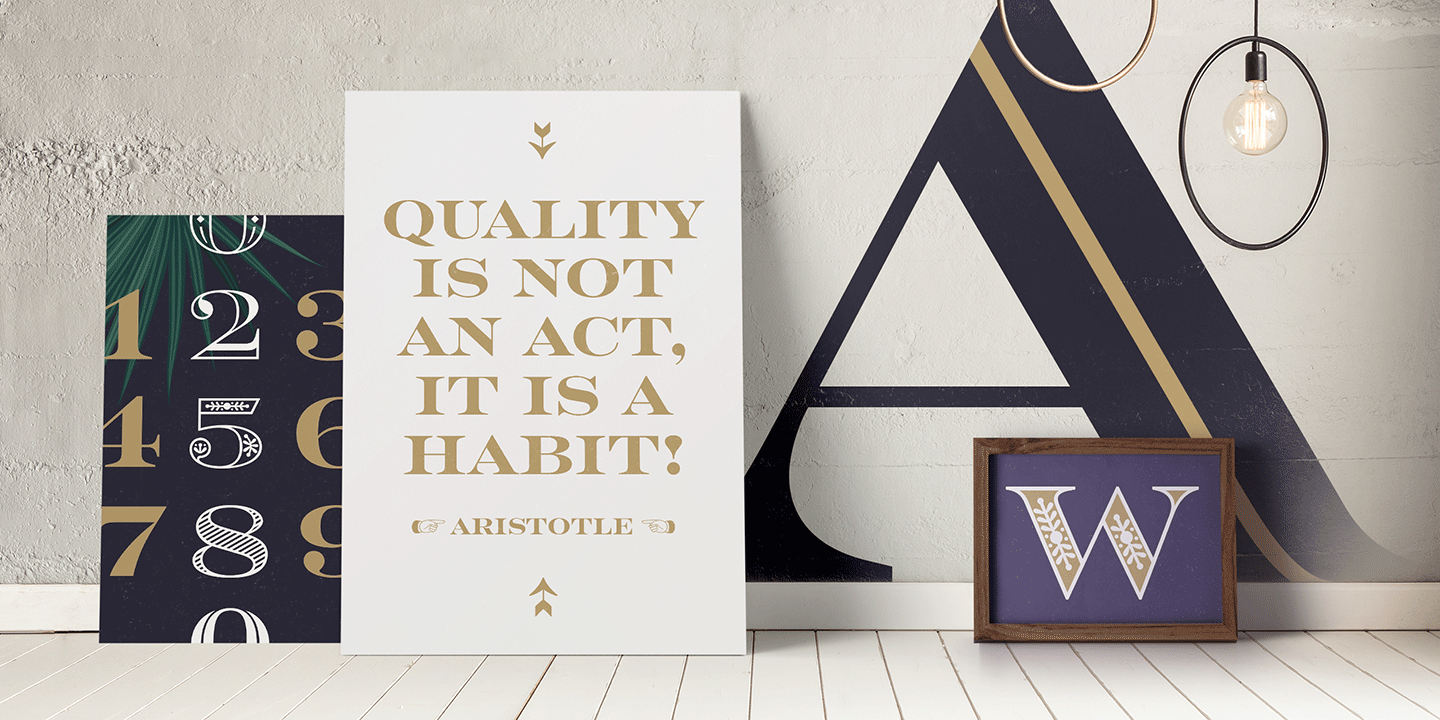
Rosella Font Free Download is a decorative and elegant typeface with vintage charm and artistic flair. Please note: you must purchase this font for commercial use, but you can test it through a free download. With its ornate letterforms, bold personality, and timeless appeal, Rosella is perfect for posters, book covers, branding, editorial titles, and sophisticated packaging design.
This font blends classical beauty with modern usability, making it ideal for projects that need to stand out with character and grace. Whether you're designing a luxury logo or a vintage-inspired advertisement, Rosella Font Free Download offers unique aesthetics and versatility. Fully compatible with Adobe Illustrator, Photoshop, Canva, and other design platforms. Download it today for personal use and bring an elevated, artistic touch to your typography with the classic elegance of Rosella.